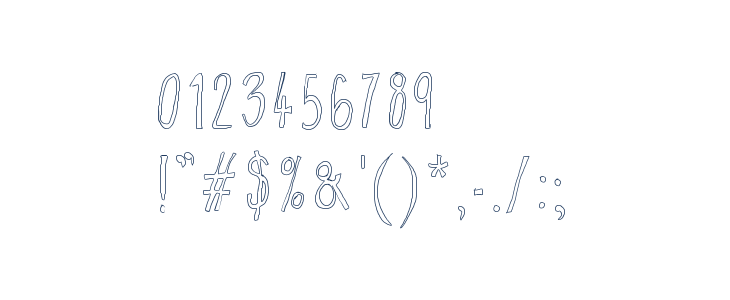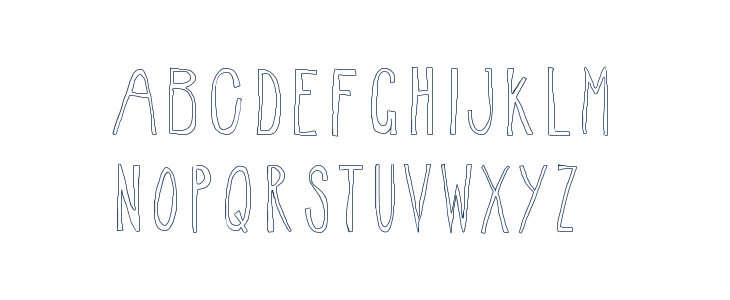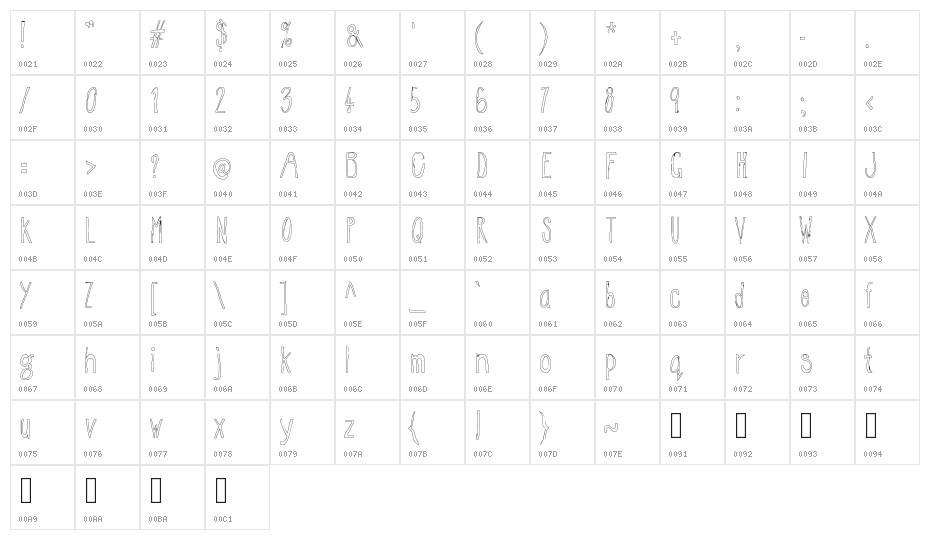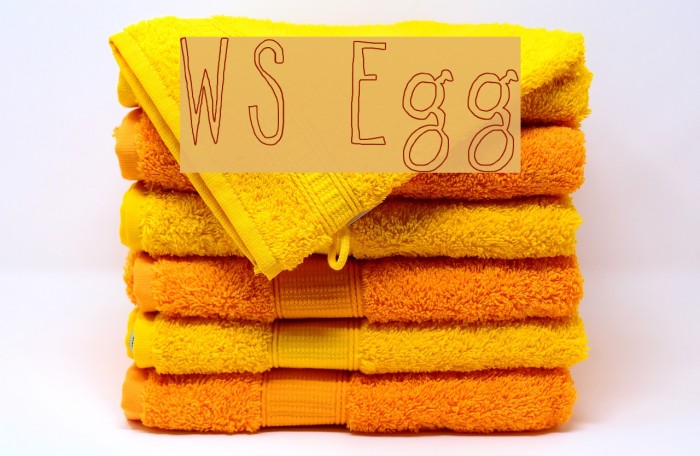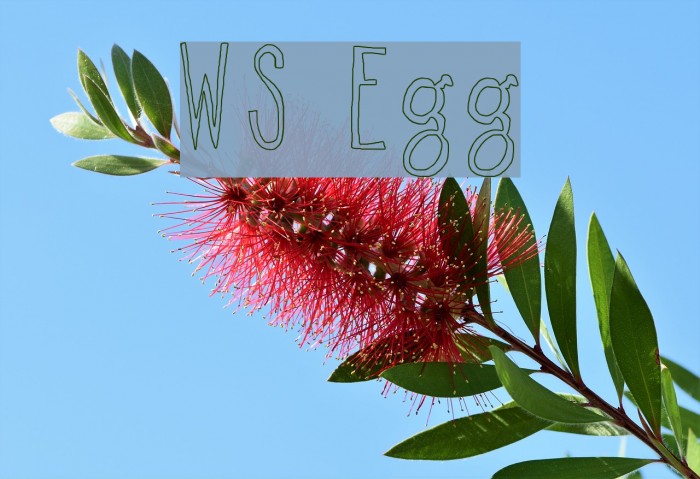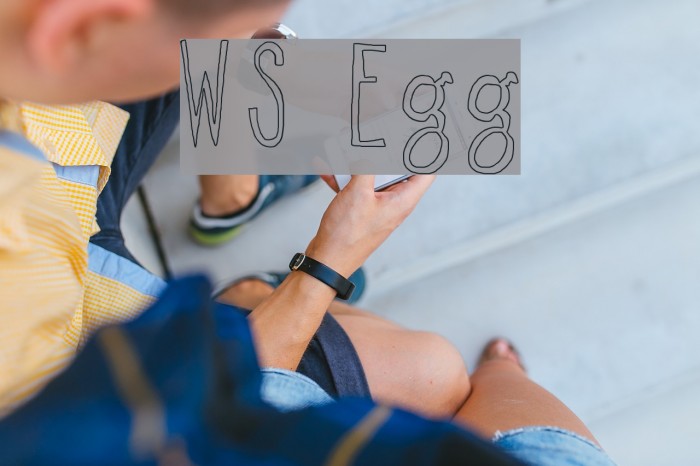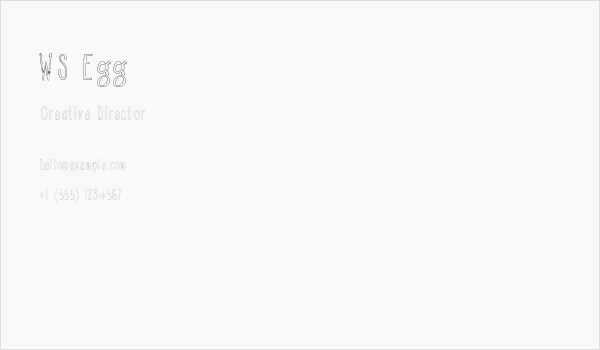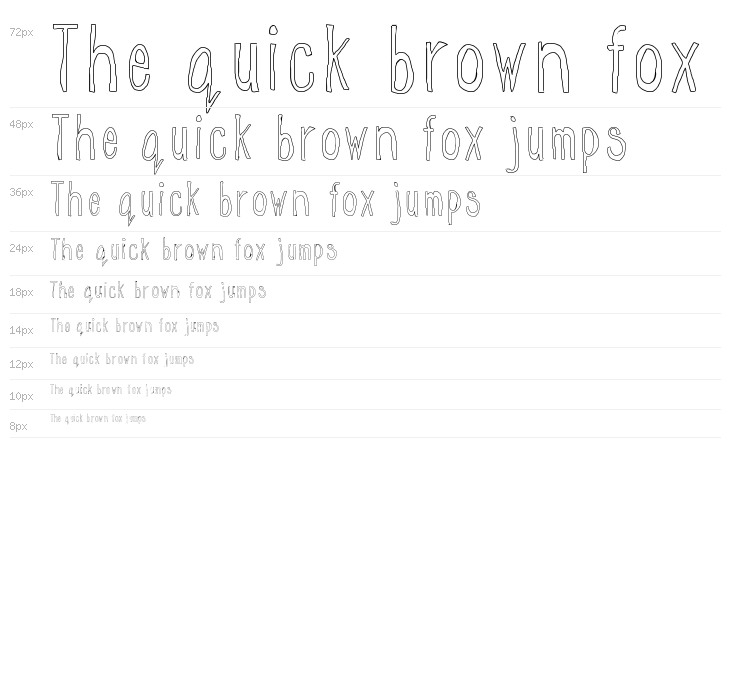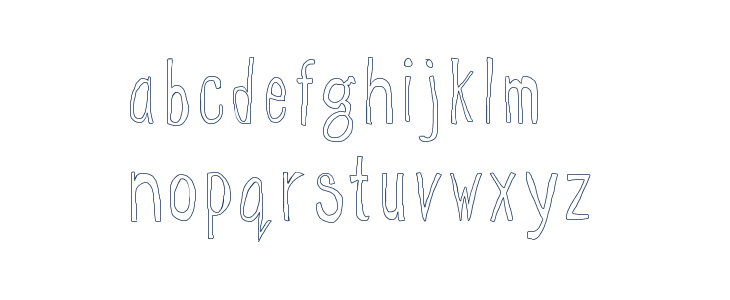
WS Egg Font
WS Egg Description
This font features a playful and whimsical design, characterized by its hand-drawn appearance and irregular line quality. The letters have a casual, informal style with a slightly uneven stroke, giving it a unique and artistic feel. The uppercase and lowercase letters maintain a consistent style, with a slight slant and varying stroke thickness that adds to its charm. The numerals and special characters follow the same playful aesthetic, making it suitable for creative and fun projects. The overall look is light-hearted and approachable, perfect for designs that aim to convey a sense of creativity and individuality.
| Proposed Projects | Ideal for children's books, creative posters, greeting cards, and playful branding. |